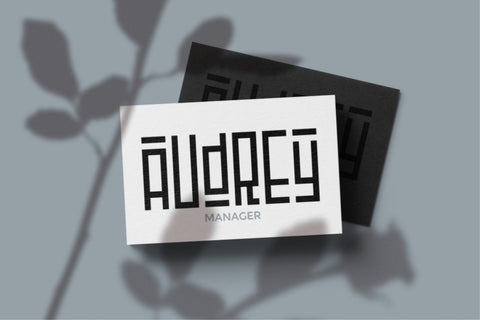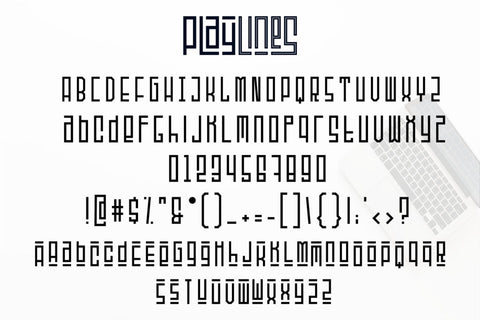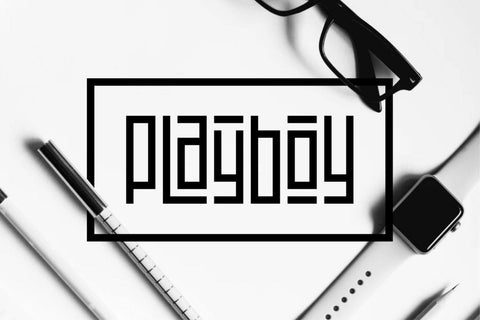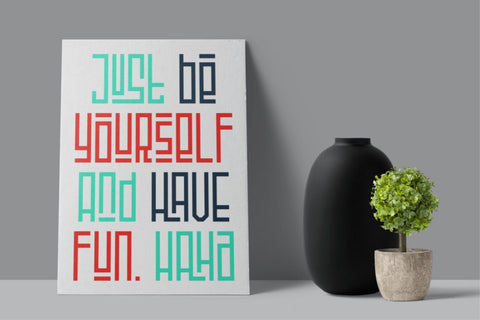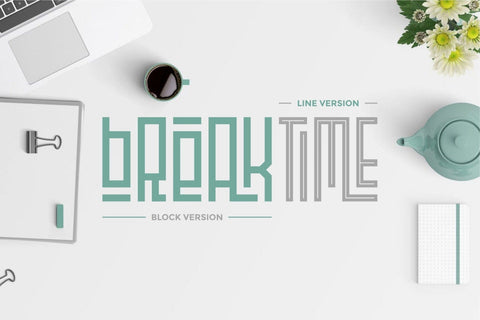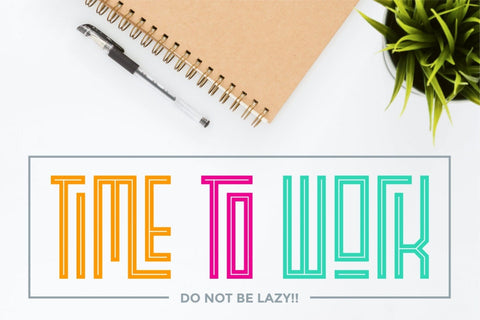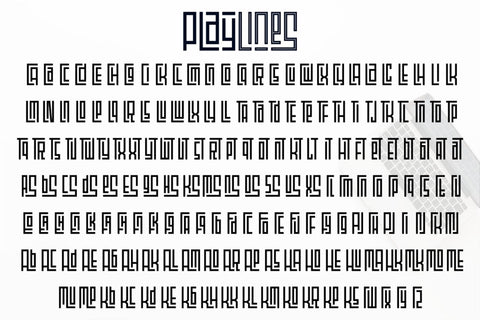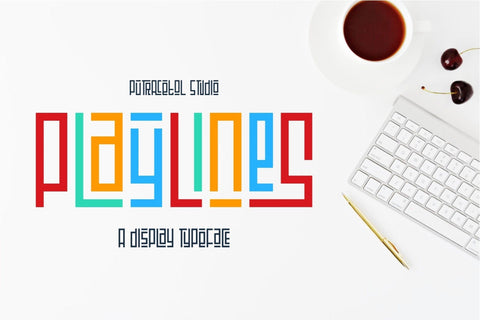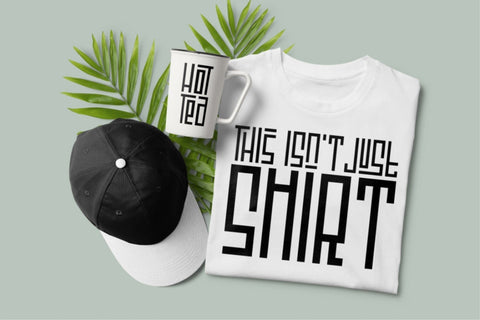
Playlines Font
Playlines is a display typeface. Playline is made with firm lines and angles. In addition to being unique and modern, there is an element of fun also in this typeface, so it is very suitable when combined with different types of typefaces. You can play with alternate and ligature, because there are many variations of character combinations in this typeface, and don't forget to play with color too :).
This typeface is great for logos, tittle, headline, tagline, tshirt, handwritten quotes, product packaging, poster, merchandise, social media, labels, branding, greeting cards, etc.